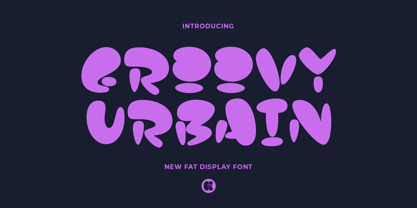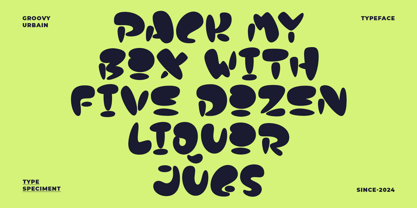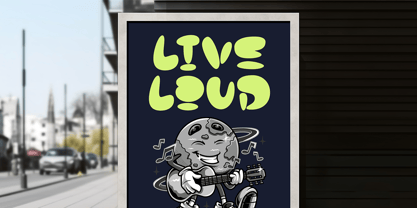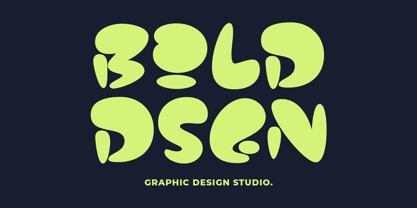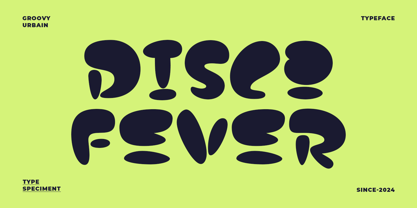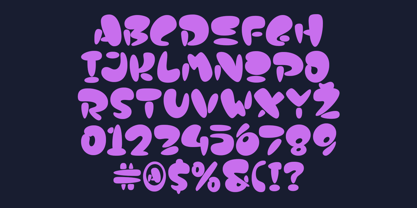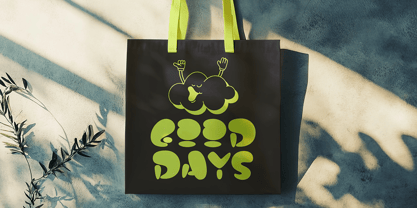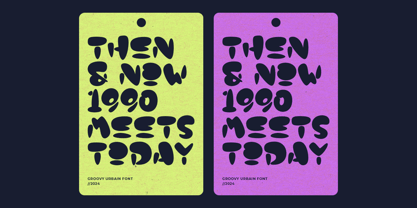
GF Urbain
by Groovy Font
The GF Urbain Font Family was designed by Ahmad Ginanjar Riyadi and published by Groovy Font. GF Urbain contains 1 styles. More about this family
Groovy Urbain font is a chubby and bold display font with a delightful combination of vectors that form a cute and whimsical design.
This font is characterized by its chunky appearance and playful aesthetic, making it the perfect choice for cartoon-inspired projects.
The charming and friendly look of Groovy Urbain adds a touch of fun and creativity to any design, making it ideal for conveying a light-hearted and jovial tone.
Whether used in branding, illustrations, or any other creative endeavor, this font is sure to bring a sense of charm and character to the layout.
Designers: Ahmad Ginanjar Riyadi
Foundry: Groovy Font